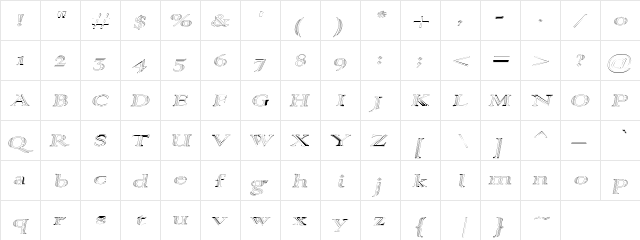
AlphaRev Hollow Regular
Design Context for AlphaRev Hollow Typeface
AlphaRev Hollow offers clean, dependable letterforms without strong stylistic allegiance, making it a practical choice for designers who need flexibility.
Pro Tip: Use AlphaRev Hollow in both headline and body roles to test its range before committing to a single application.